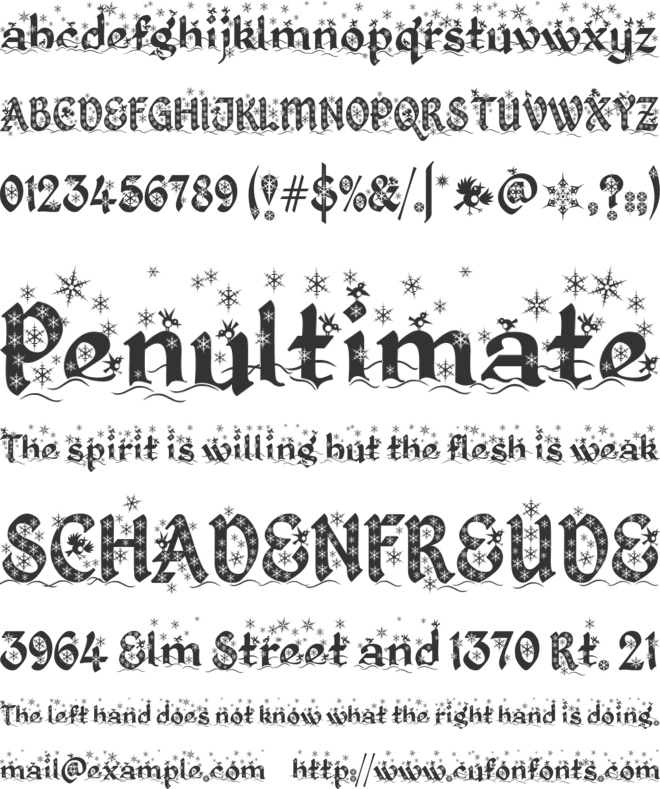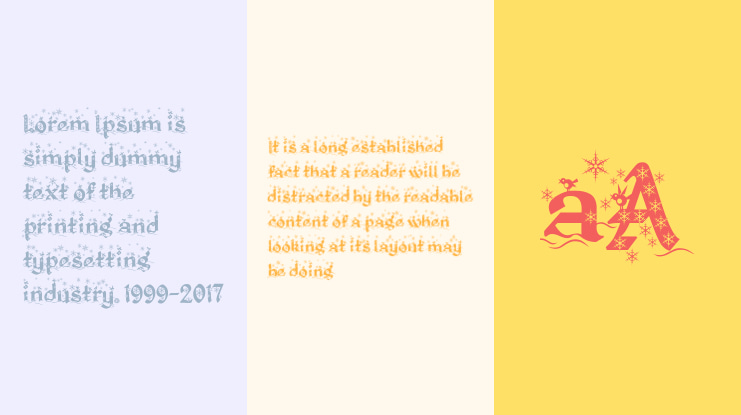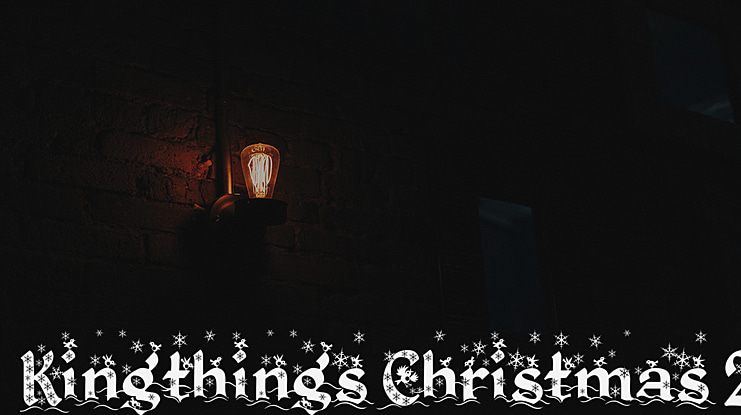
Kingthings Christmas 2 Font
Kevin King 2007/2009
Based on Kingthings Petrock - this is a display font and needs to be used at least an inch high to see any detail. Happy Christmas!